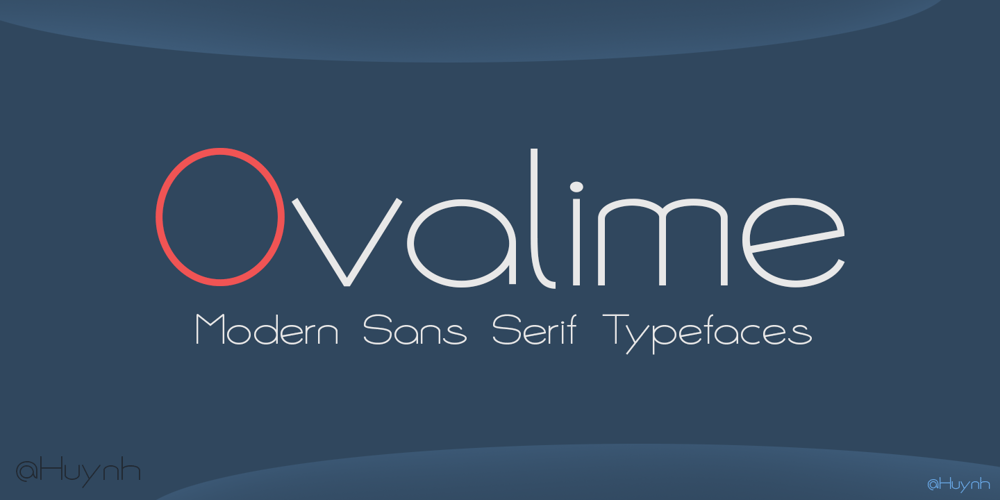
Ovalime
Ovalime font
Ovalime Font Family was designed by Ngoc Huynh and published by Sayurihuynh. Ovalime contains 3 styles and family package options. Ovalime, a modern and minimalistic sans serif typeface was designed by Ngoc Huynh. It looks stunning in every context and perfect for branding, stationery, social media posts, advertisements, product packaging, label, photography, watermark, special events, and more.Includes:- Uppercase and lowercase letters;- Multilingual symbols, numerals, and punctuation.